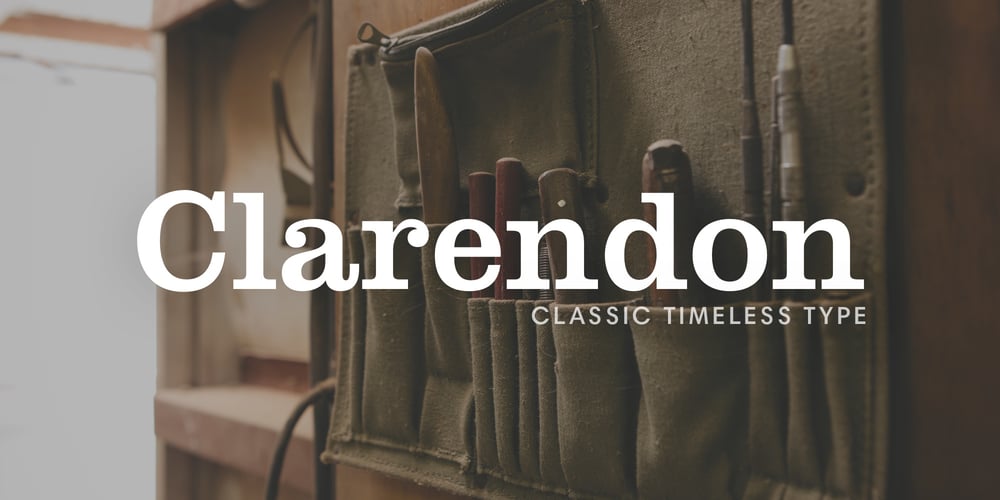
Clarendon BT
Clarendon BT font
Clarendon BT Font Family was designed by Benjamin Fox, Bitsream Staff Designer and published by Bitstream. Clarendon BT contains 7 styles and family package options. The new Clarendon BT Pro typeface family features 450 glyphs in each font with expanded support for Central and Eastern European languages, and enhanced OpenType features including ligatures, diagonal fractions, superscript/subscripts and Case-Sensitive Forms. Clarendon BT is an updated revival of the square serif (also called Ionic or Egyptienne styles) with bracketed serifs, ball terminals and high xheights. These attributes give Clarendon BT a timeless appearance for a wide range of contemporary uses from websites, ads, publications and signage.